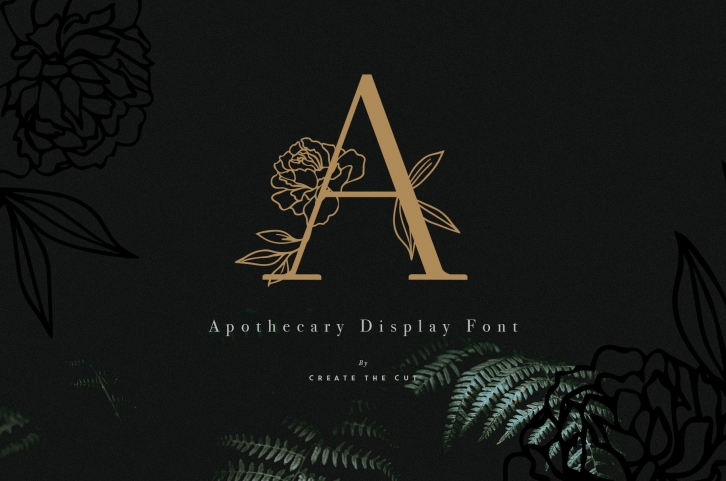
Apothecary – A modern botanical display font.
Inspired by the pharmacist of old's blend of botanical and chemical to create a remedy. We have blended our own love for fine typography and florals to create a remedy for any font lover who needs a little flair in their font library!
Apothecary is a brand new font hand crafted from the ground up. Not only is this a stylish all capitals display font but it also features original botanical line artwork creating a unique & sophisticated look with every press of the keyboard.
Apothecary Rose Gold Alphabet:
Apothecary Original Line Artwork: